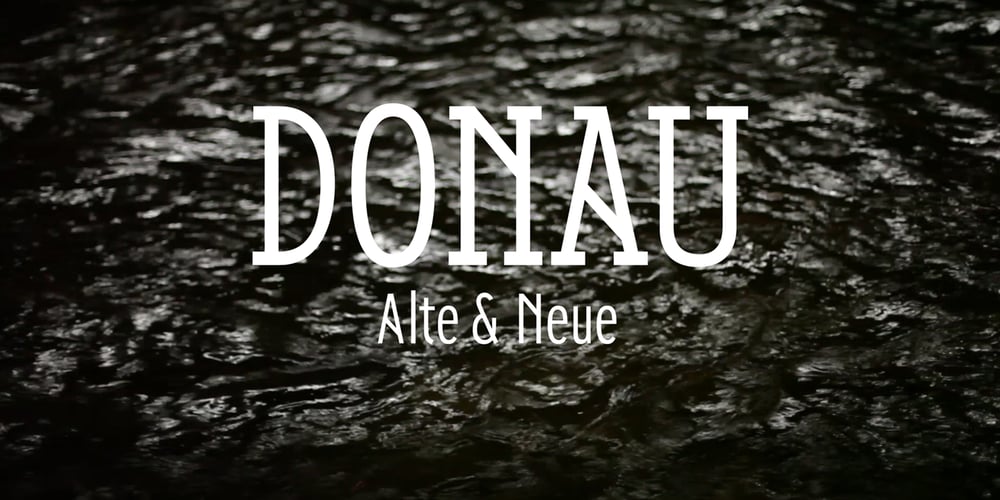
Donau Font Family was designed by Igor Labudovic, Hans Renzler, Dmitrij Ritter and published by Renzler Design. Donau contains 2 styles and family package options. The font Donau is named after the german name for the river Danube. It is an art nouveau inspired sans and slab serif typeface, sharing proportions and widths across two weights. It is intended for any kind of display use as well as short amounts of text. Enjoy!